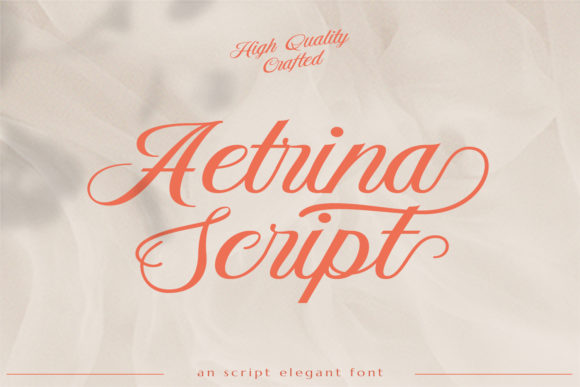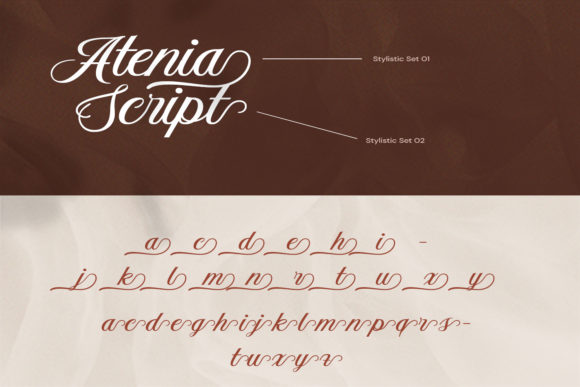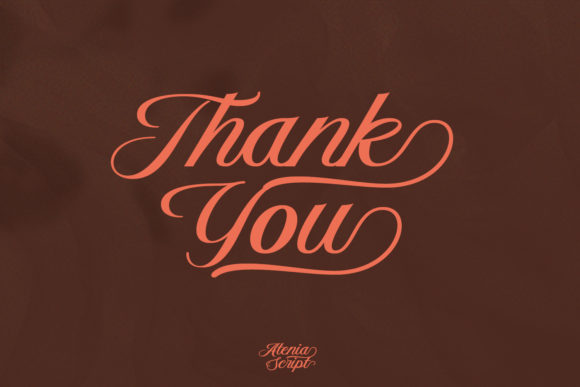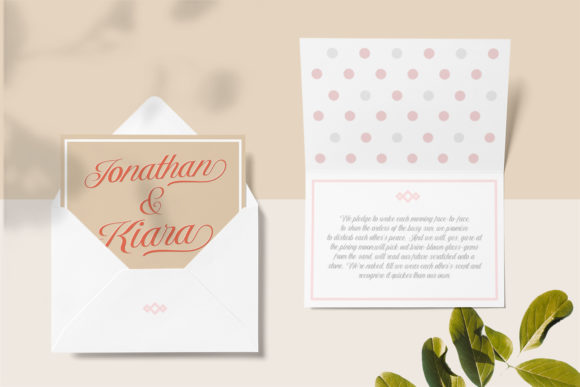
About Aetrina Script Font
Aetrina Script is an exquisite handwritten font that exudes a perfect blend of distinctiveness, delicacy, and timelessness. Its stunning appearance makes it a versatile choice for various design projects, particularly those that demand an elegant and handwritten touch. Here are some key features that set Aetrina Script apart:
Distinctive Appeal: Aetrina Script boasts unique letterforms and artistic strokes, making it stand out among other handwritten fonts. Its distinctiveness ensures that your designs capture attention and leave a memorable impression on viewers.
Delicate Elegance: The font’s delicate lines and graceful curves add a touch of elegance and refinement to any design. Aetrina Script captures the artistry of handwritten script, making it an ideal choice for projects seeking a sophisticated and refined look.
Timeless Beauty: Aetrina Script’s timeless quality ensures that it remains captivating and relevant for years to come. Its classic aesthetic makes it suitable for a variety of design styles, ranging from modern to vintage, and everything in between.
Versatility: Whether you’re designing wedding invitations, thank you cards, quotes, greeting cards, logos, or business cards, Aetrina Script effortlessly complements a wide range of design elements. Its versatility makes it a go-to font for designers looking to add a touch of personalized charm to their work.
Handwritten Authenticity: Aetrina Script brings the authenticity of handwritten text to your designs, creating a warm and personal connection with your audience. Its organic and natural appearance enhances the overall visual appeal of your designs, making them more inviting and engaging.
Captivating Impact: With its distinctive and timeless beauty, Aetrina Script ensures that your designs make a captivating impact on viewers. Its elegant and sophisticated look will draw attention and admiration, elevating your projects to new heights.
Embrace the distinct, delicate, and timeless allure of Aetrina Script to add a touch of elegance and sophistication to your design projects. Whether for special occasions or professional branding, Aetrina Script will enhance the beauty and charm of every design it graces.